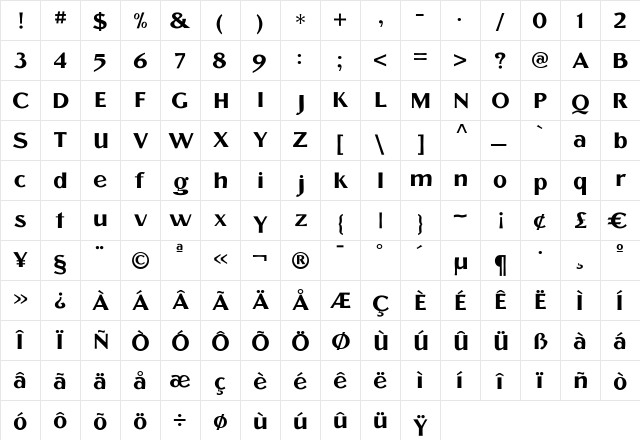
Julius Plain Regular
Design Context for Julius Plain Typeface
Julius Plain is a composed and adaptable typeface that performs quietly and consistently across a wide range of design contexts.